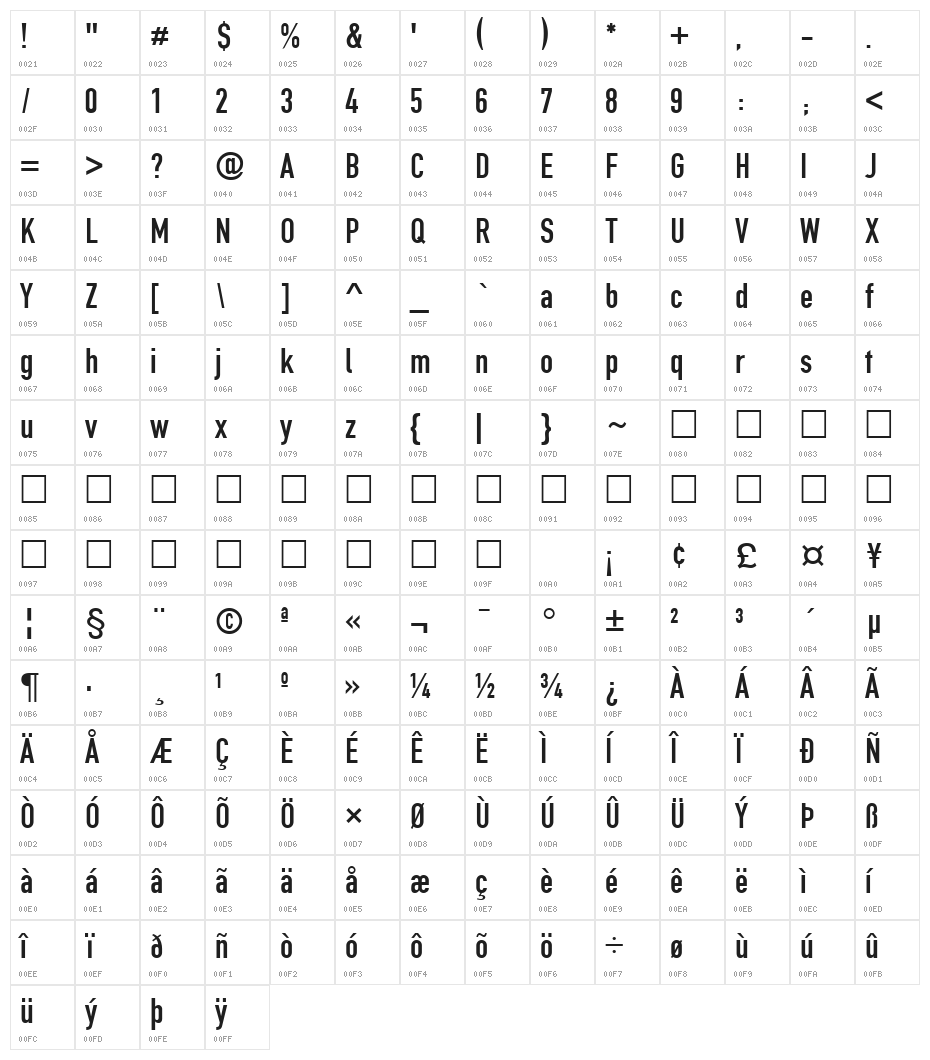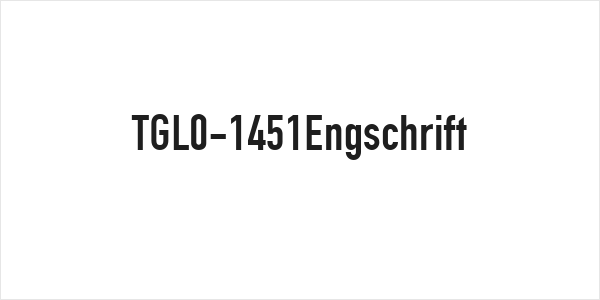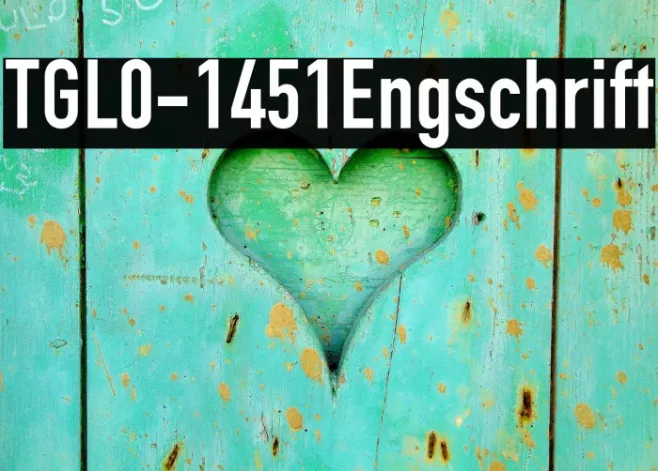
TGL0-1451Engschrift Font
TGL0-1451Engschrift Description
This font features a bold and condensed sans-serif style, characterized by its strong vertical emphasis and uniform stroke width. The uppercase letters are tall and narrow, while the lowercase letters maintain a consistent height, providing a cohesive appearance. The numerals are clear and easily distinguishable, making them suitable for various applications. The special characters are well-defined, ensuring readability and versatility. This font's clean and modern design makes it ideal for impactful headlines and signage.
| Use Case | Headlines, Signage, Posters |
| Proposed Projects | Ideal for use in headlines, signage, posters, and branding materials where a strong visual impact is desired. |